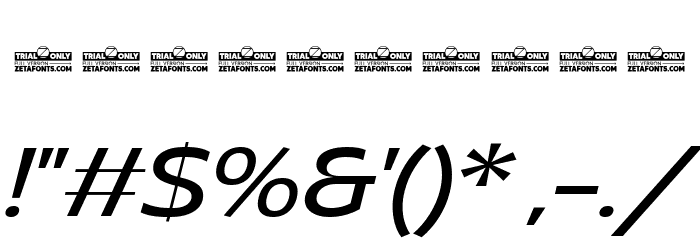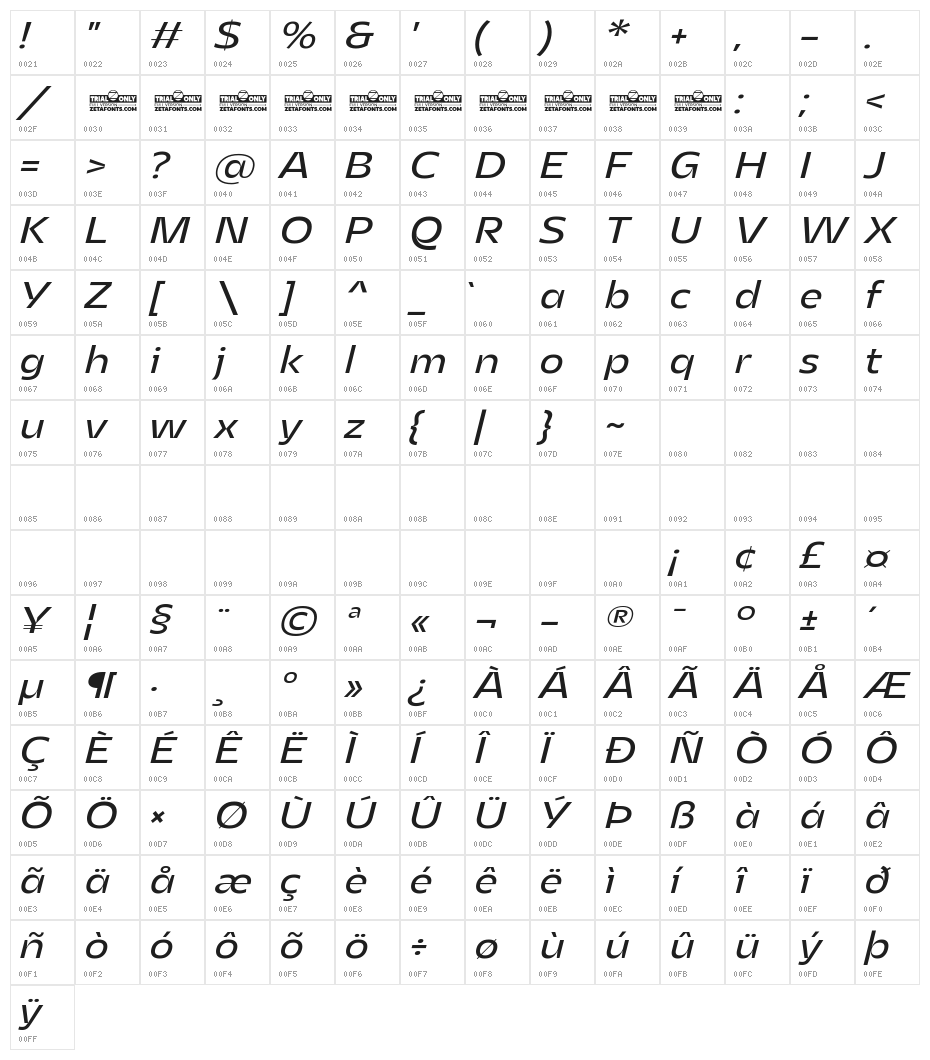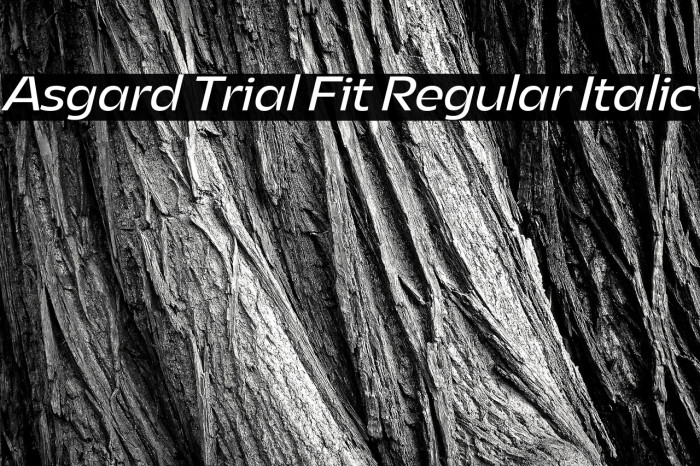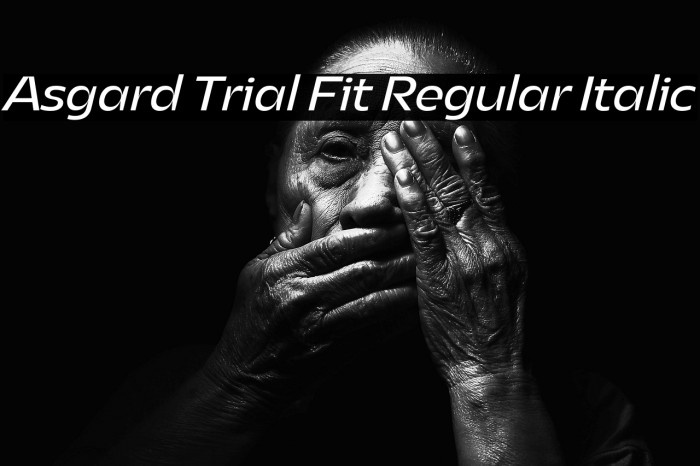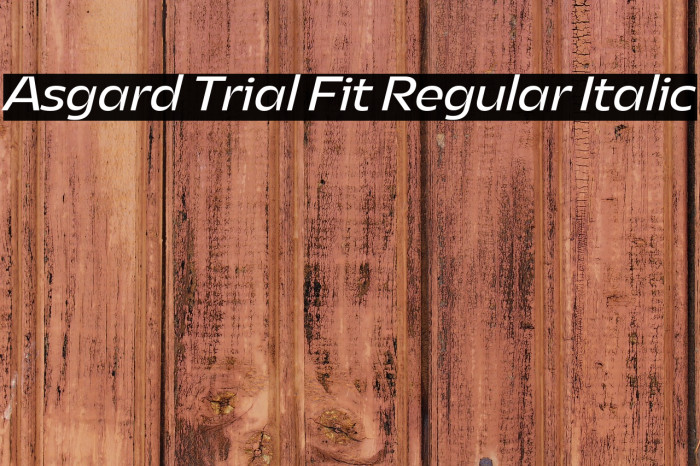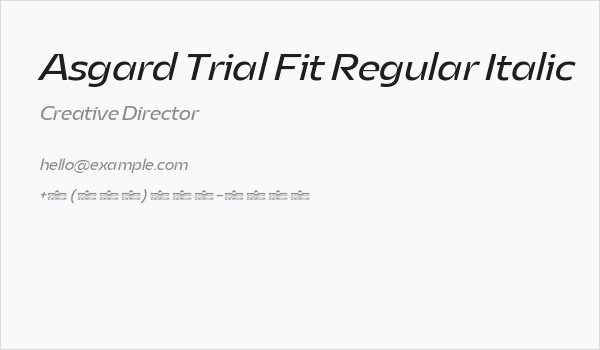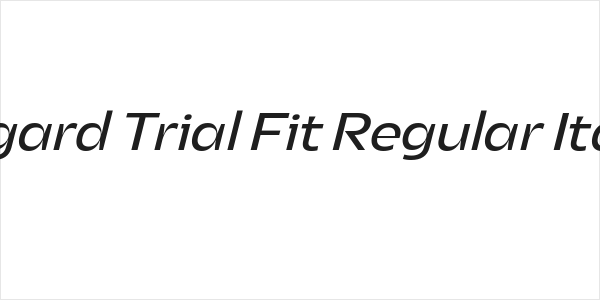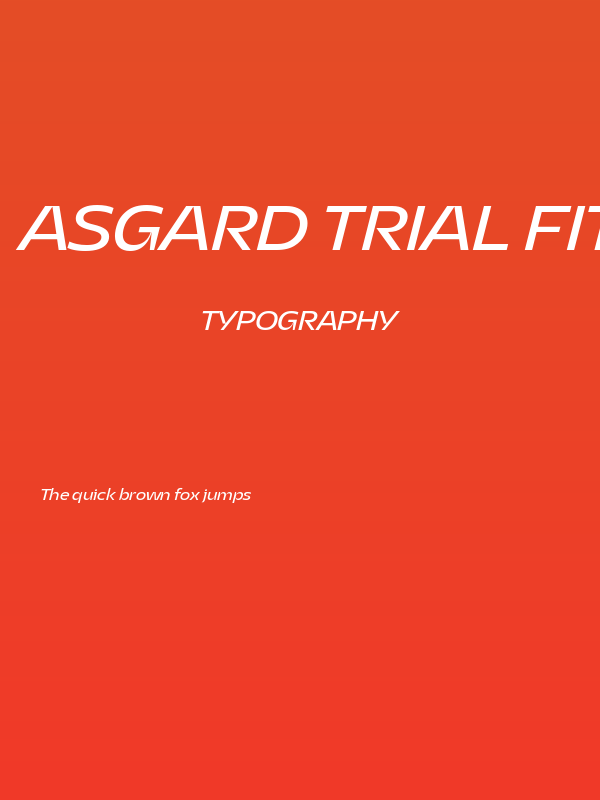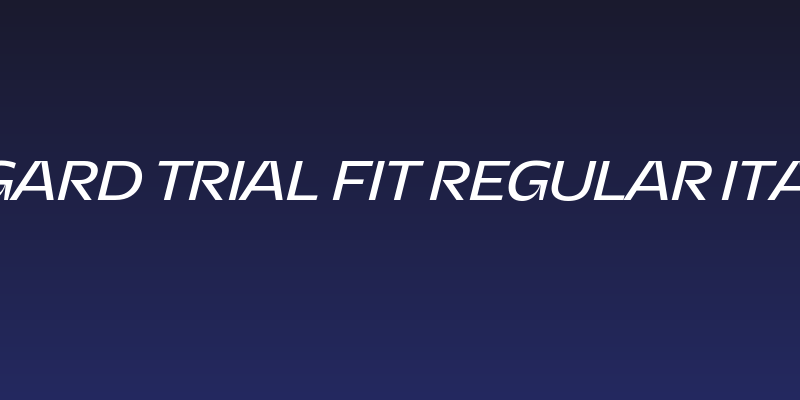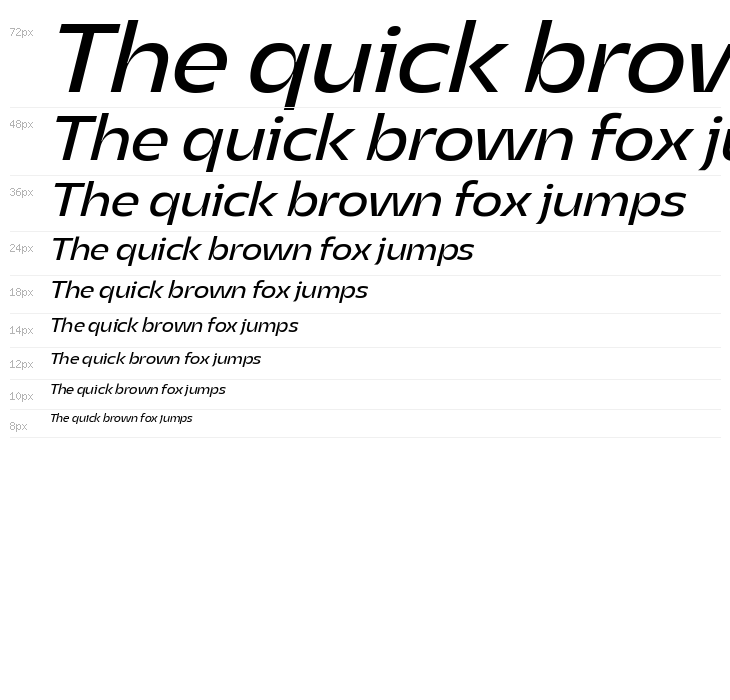
Asgard Trial Fit Regular Italic Font
Asgard Trial Fit Regular Italic Description
This font features a sleek and modern design with a slight italic slant, giving it a dynamic and forward-moving appearance. The characters are clean and well-defined, with a consistent stroke width that maintains readability across different sizes. The uppercase letters are bold and commanding, while the lowercase letters are smooth and harmonious. The numerals are clear and balanced, matching the overall aesthetic of the font. Special characters are included, providing versatility for various design needs.
| Proposed Projects | Ideal for branding, advertising, and editorial design projects that require a contemporary and professional look. |